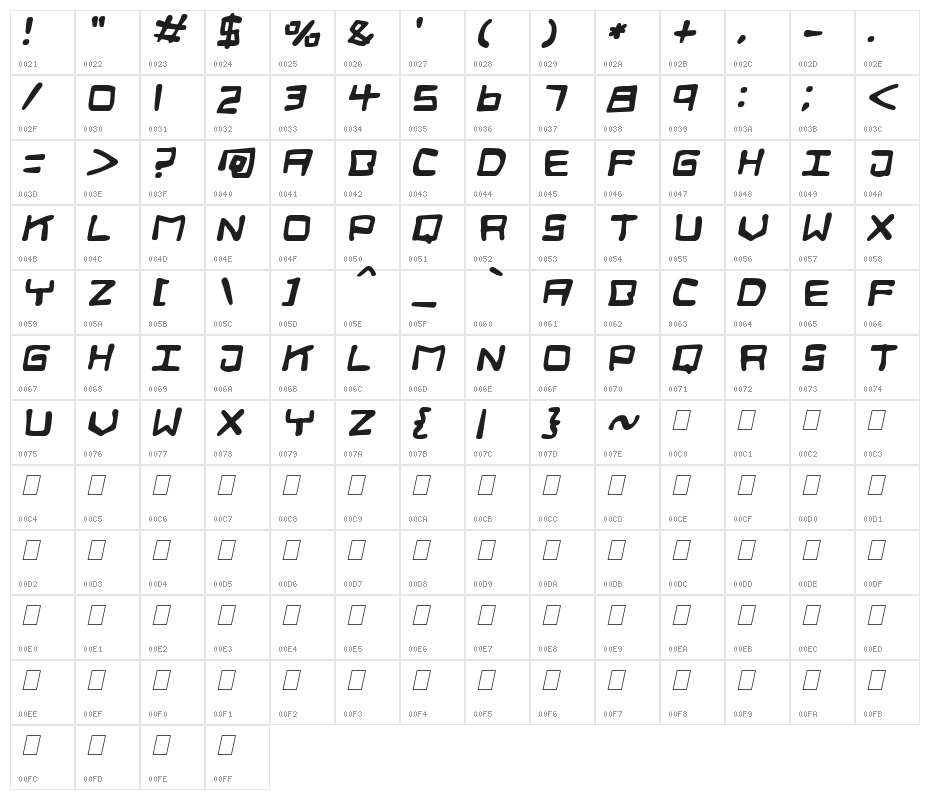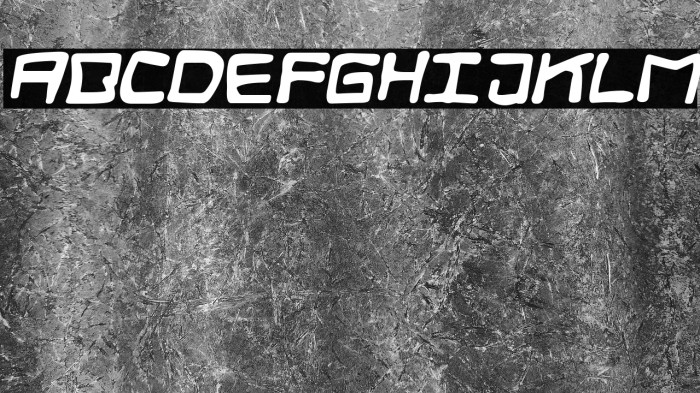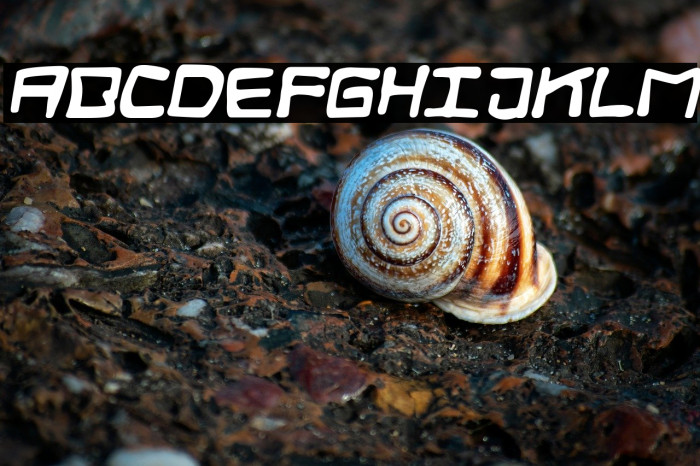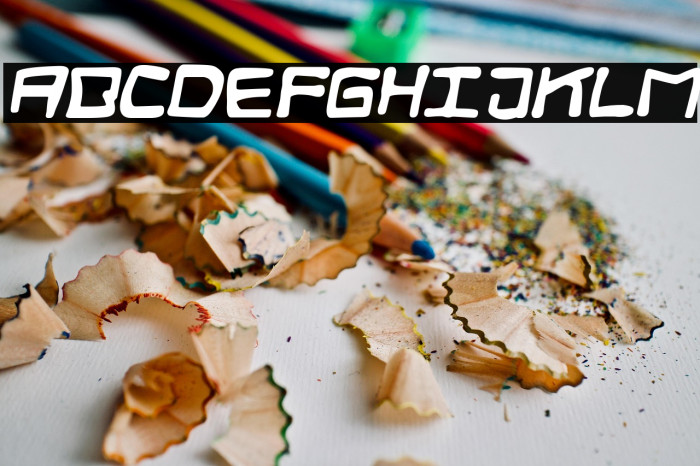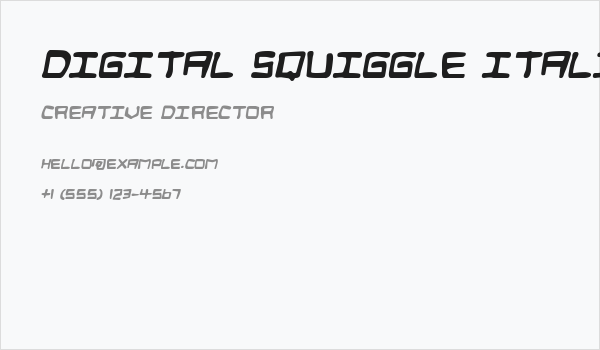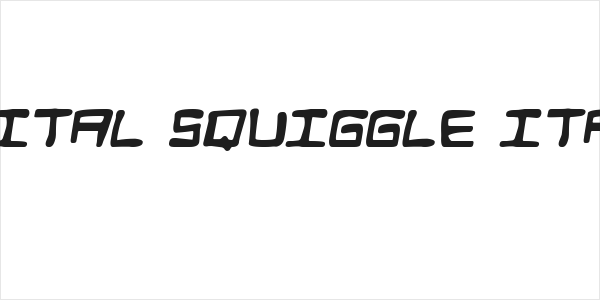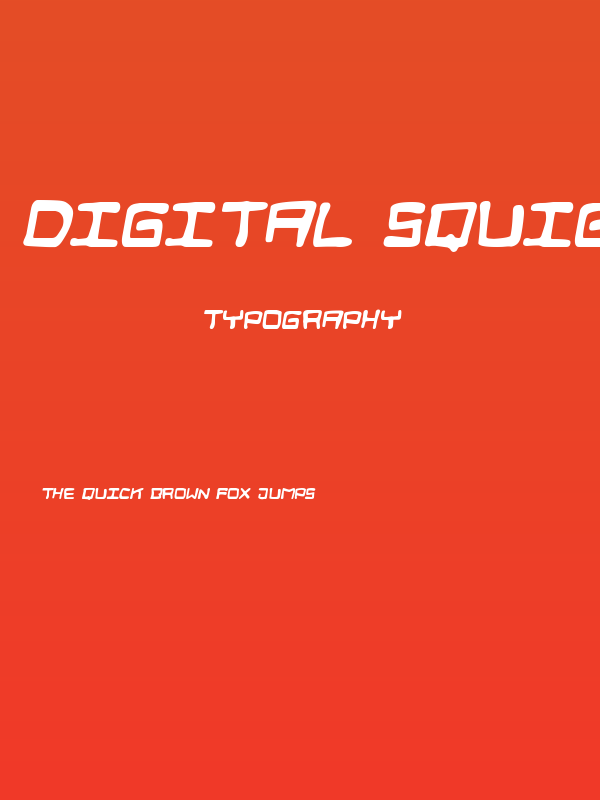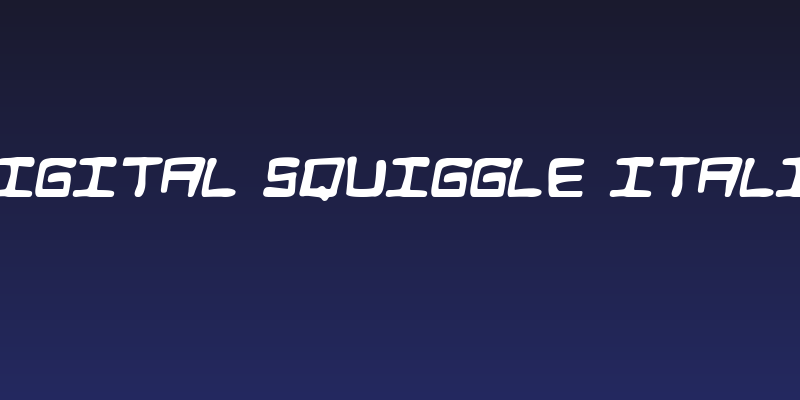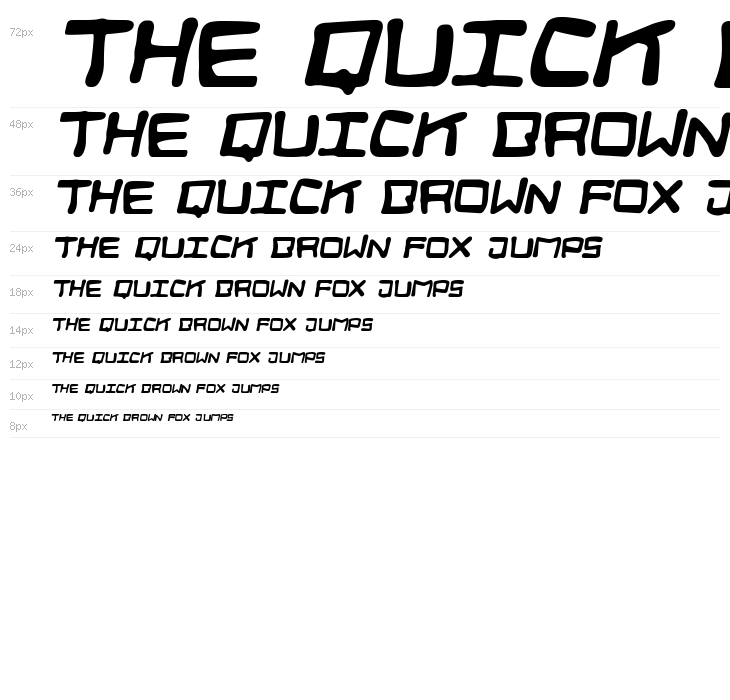
Digital Squiggle Italic Font
Digital Squiggle Italic Description
This font features a playful and dynamic style with a handwritten appearance. The letters are slightly slanted, giving an italicized effect, and have a smooth, flowing quality that resembles a digital squiggle. The characters are bold and rounded, with consistent stroke thickness throughout, creating a uniform look. The numbers and special characters maintain the same playful and informal style, making the font suitable for creative and casual applications. The overall design is modern and unique, with a touch of whimsy that adds character to any project.
| Proposed Projects | Ideal for children's books, playful branding, casual invitations, and creative digital content. |